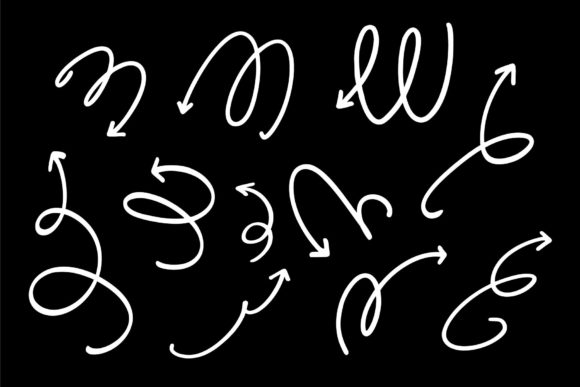
Dingbats Arrow Font: Elevate Your Designs with Creative Flair
Are you a designer, crafter, or DIY enthusiast looking to add a touch of personality to your projects? Look no further than the Dingbats Arrow Font! This versatile and visually appealing dingbats font is perfect for anyone seeking to embellish their creations with a dash of creativity. In this article, we’ll explore the world of Dingbats Arrow Font, its features, and how you can incorporate it into your design library.
What are Dingbats Fonts?
Dingbats fonts, also known as symbol fonts or ornament fonts, are a type of font that consists of graphical symbols, shapes, and ornaments rather than traditional alphabet characters. These fonts are designed to add visual interest and flair to your designs, making them perfect for a wide range of applications, from crafting and scrapbooking to graphic design and digital art.
Introducing Dingbats Arrow Font
Dingbats Arrow Font is a unique and useful dingbats font that features a collection of arrow symbols, shapes, and ornaments. With its clean and modern design, this font is ideal for designers and crafters who want to add a touch of sophistication and elegance to their projects. Whether you’re creating a logo, brochure, or social media graphic, Dingbats Arrow Font is sure to make your designs stand out.
Key Features of Dingbats Arrow Font
- Variety of Arrow Symbols: Dingbats Arrow Font features a wide range of arrow symbols, including straight, curved, and decorative arrows, perfect for indicating direction, movement, or flow in your designs.
- Ornaments and Shapes: In addition to arrows, this font includes a selection of ornaments and shapes, such as stars, hearts, and boxes, which can be used to add texture and visual interest to your designs.
- Scalable and Versatile: Dingbats Arrow Font is designed to be scalable, making it suitable for use in a variety of applications, from small icons and graphics to large-scale posters and banners.
Here are a few ideas for using Dingbats Arrow Font in your designs:
- Directional Indicators: Use the arrow symbols to indicate direction or movement in your designs, such as in infographics, diagrams, or maps.
- Embellishments: Add a touch of personality to your designs with the ornaments and shapes, perfect for use in scrapbooking, card making, or digital art.
- Logos and Branding: Use Dingbats Arrow Font to create unique and memorable logos or branding elements, such as icons or social media graphics.
Here are a few tips and tricks for getting the most out of Dingbats Arrow Font:
- Experiment with Size and Color: Don’t be afraid to experiment with different sizes and colors to add visual interest to your designs.
- Combine with Other Fonts: Combine Dingbats Arrow Font with other fonts to create unique and eye-catching typography.
- Use in Digital and Print Applications: This font is suitable for use in both digital and print applications, making it a versatile addition to your design library.
Dingbats Arrow Font is a valuable addition to any design library, offering a unique and versatile collection of arrow symbols, ornaments, and shapes. With its clean and modern design, this font is perfect for designers and crafters seeking to add a touch of creativity and personality to their projects. Download Dingbats Arrow Font today and start elevating your designs with creative flair!